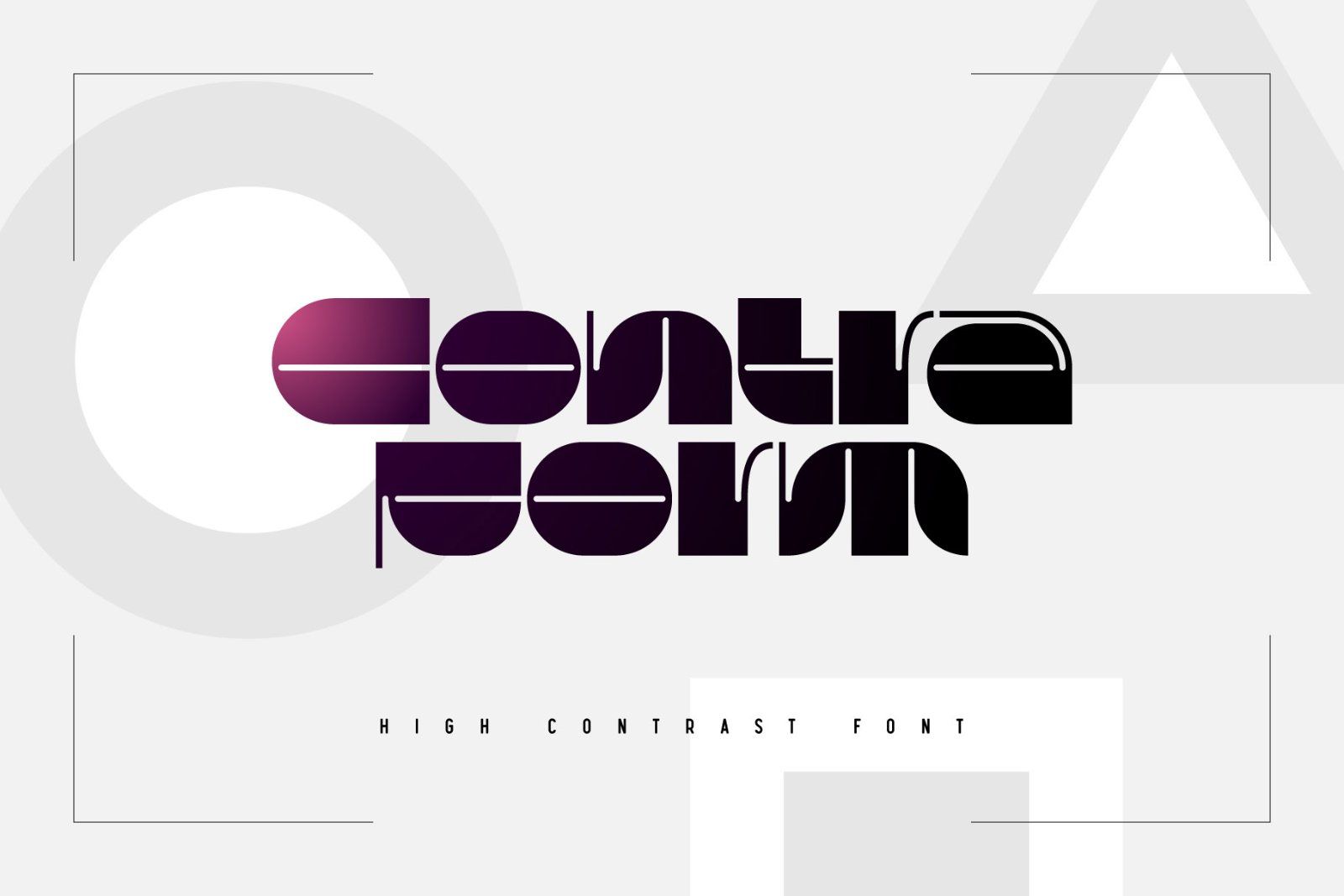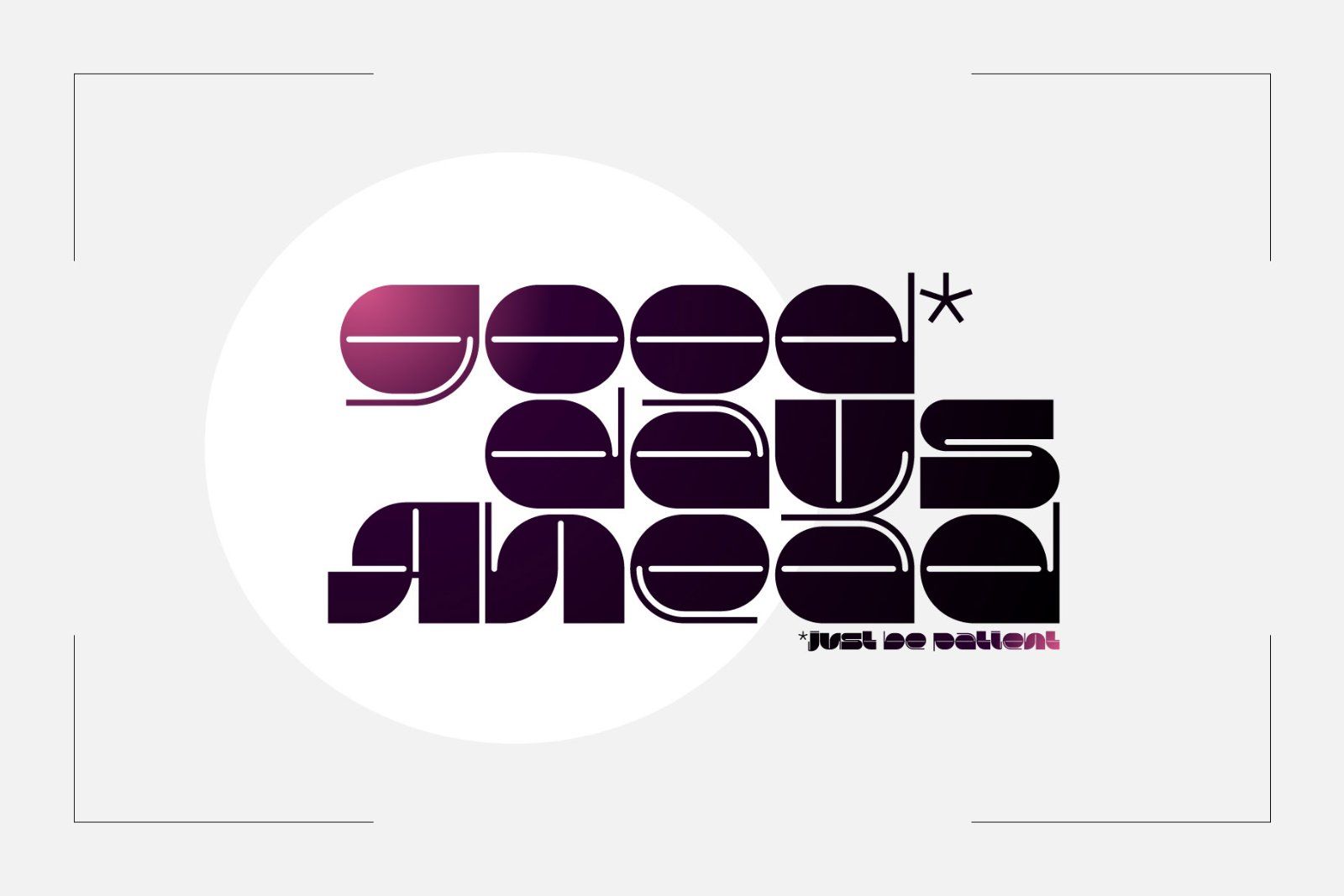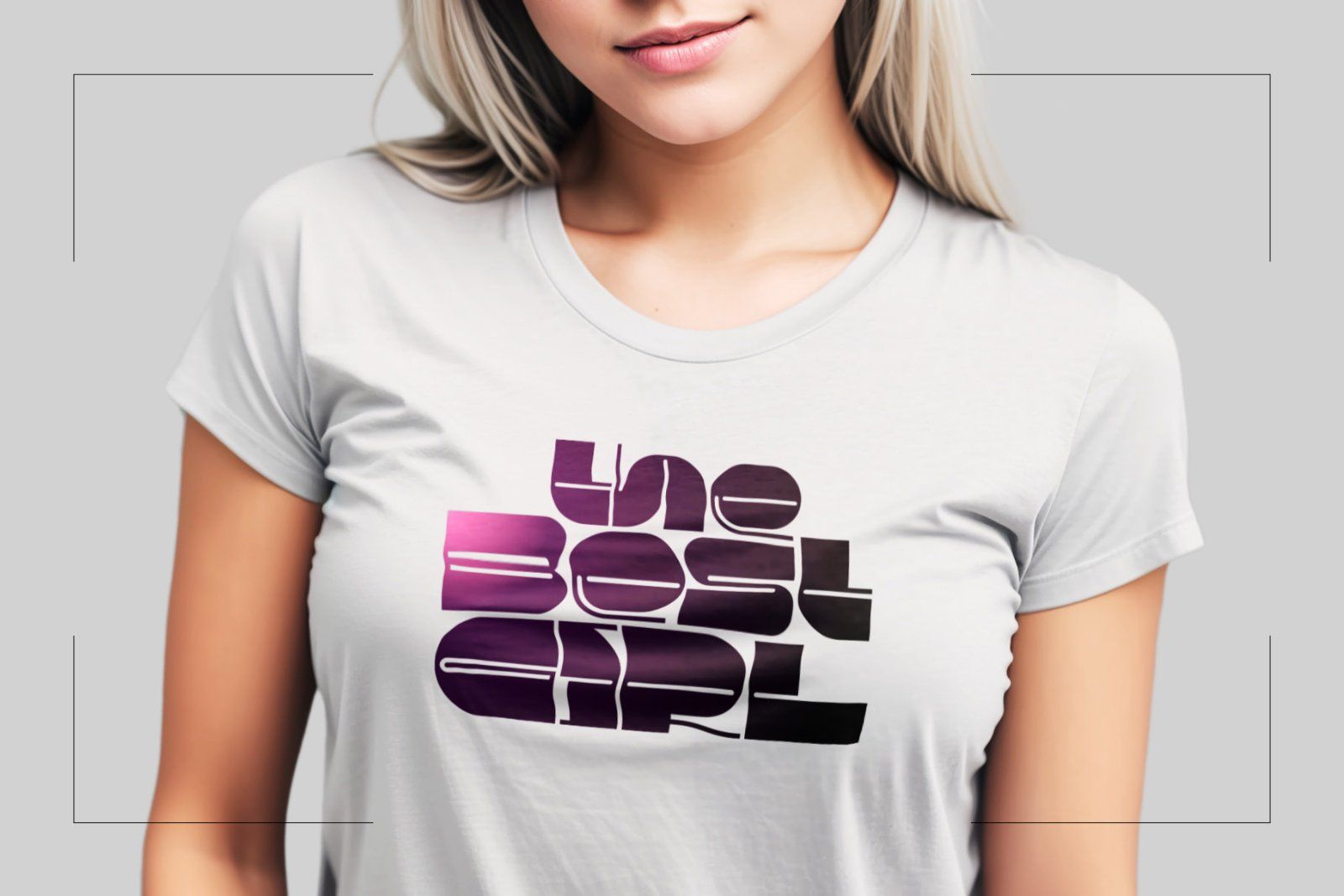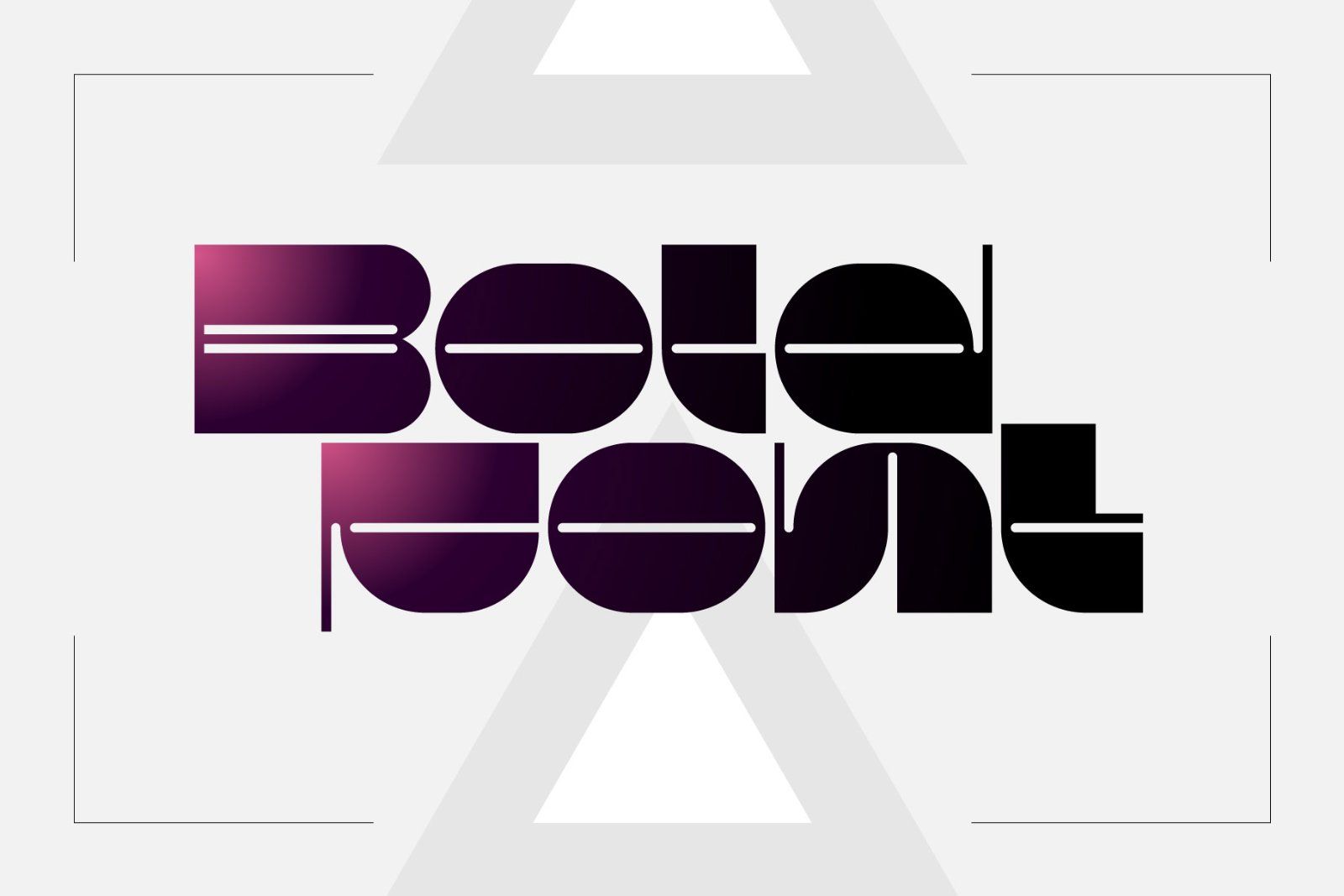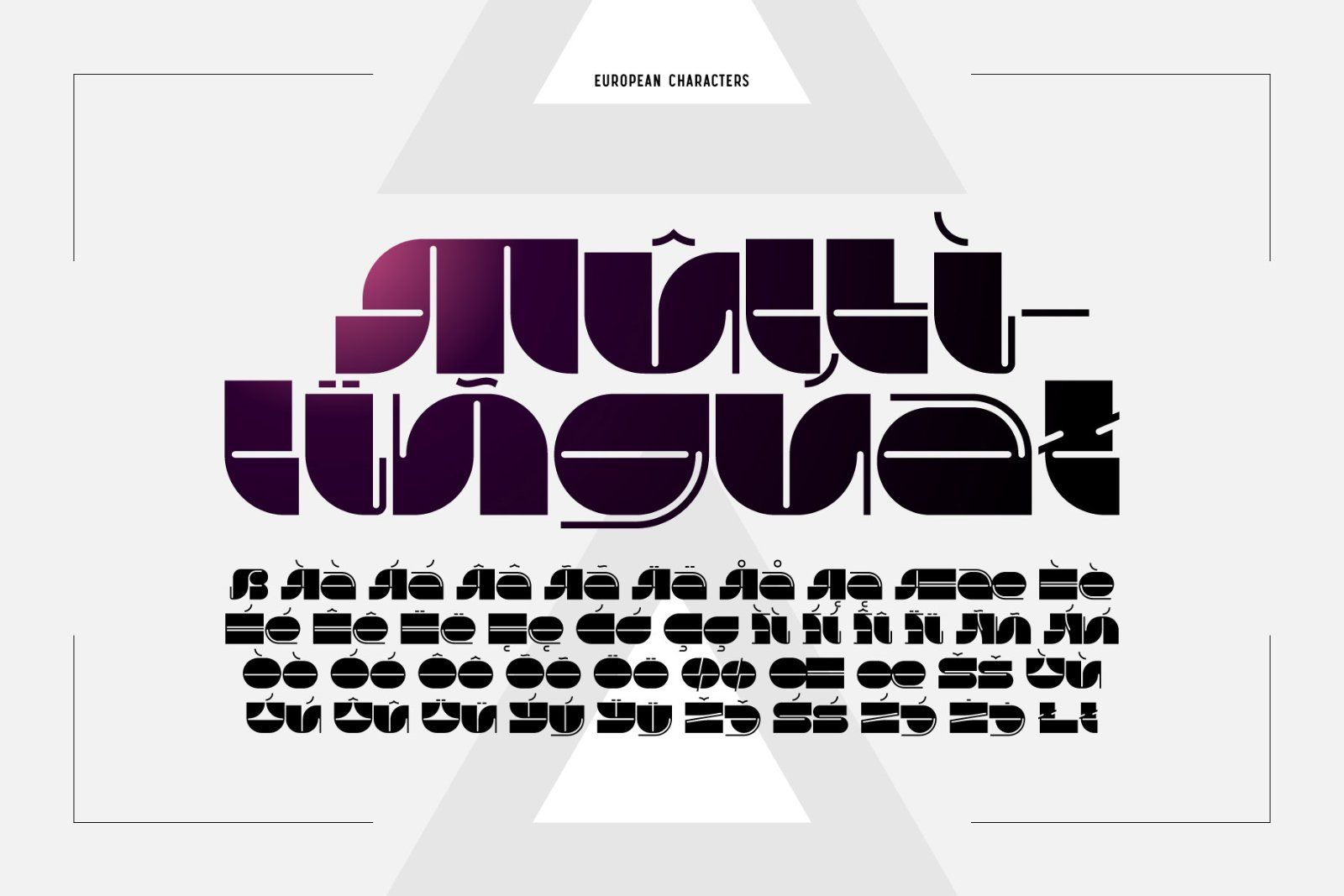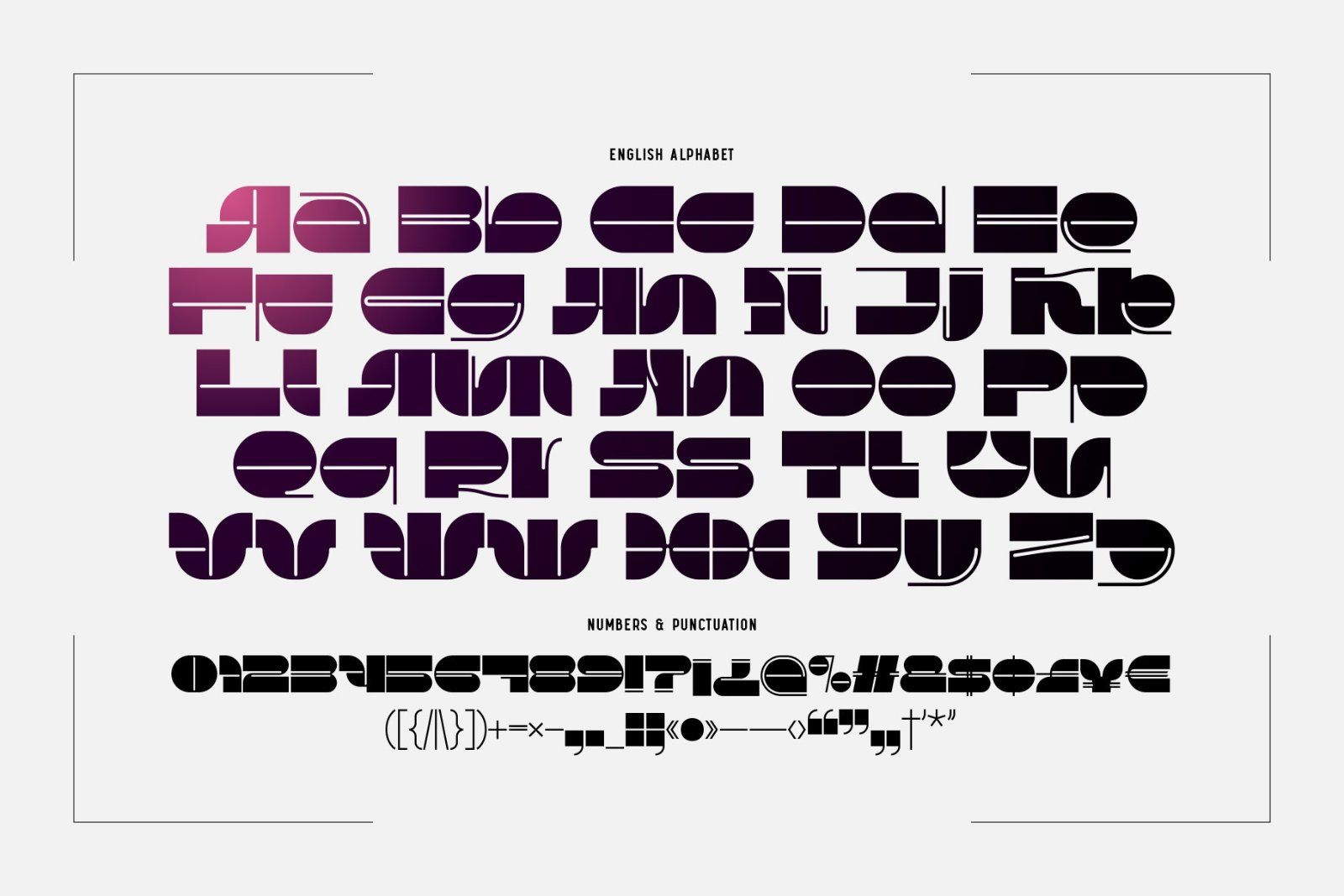
MarketplaceFontsContraform - High Contrast Font
Hello! Introducing a high-contrast font named Contraform. It's a geometric shape bold typeface with a modern creative look. This font includes lots of multilingual characters (check out a screenshot with available letters and signs).